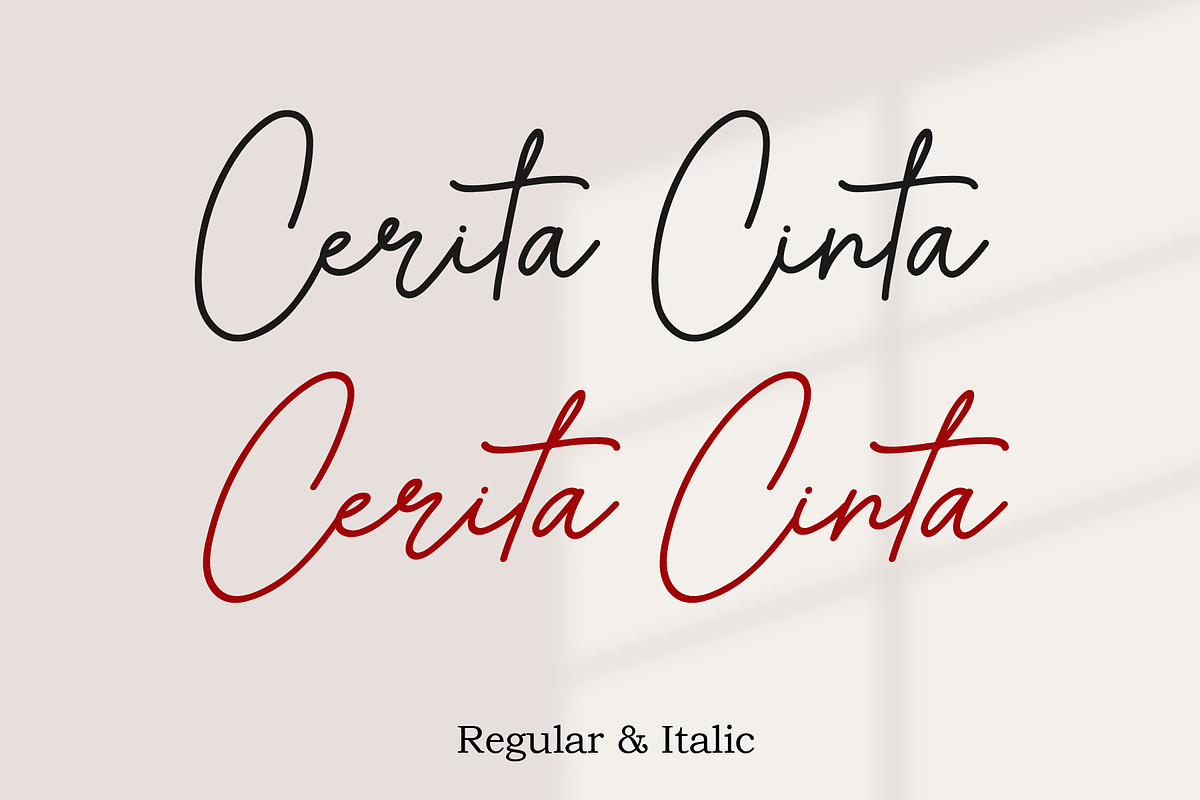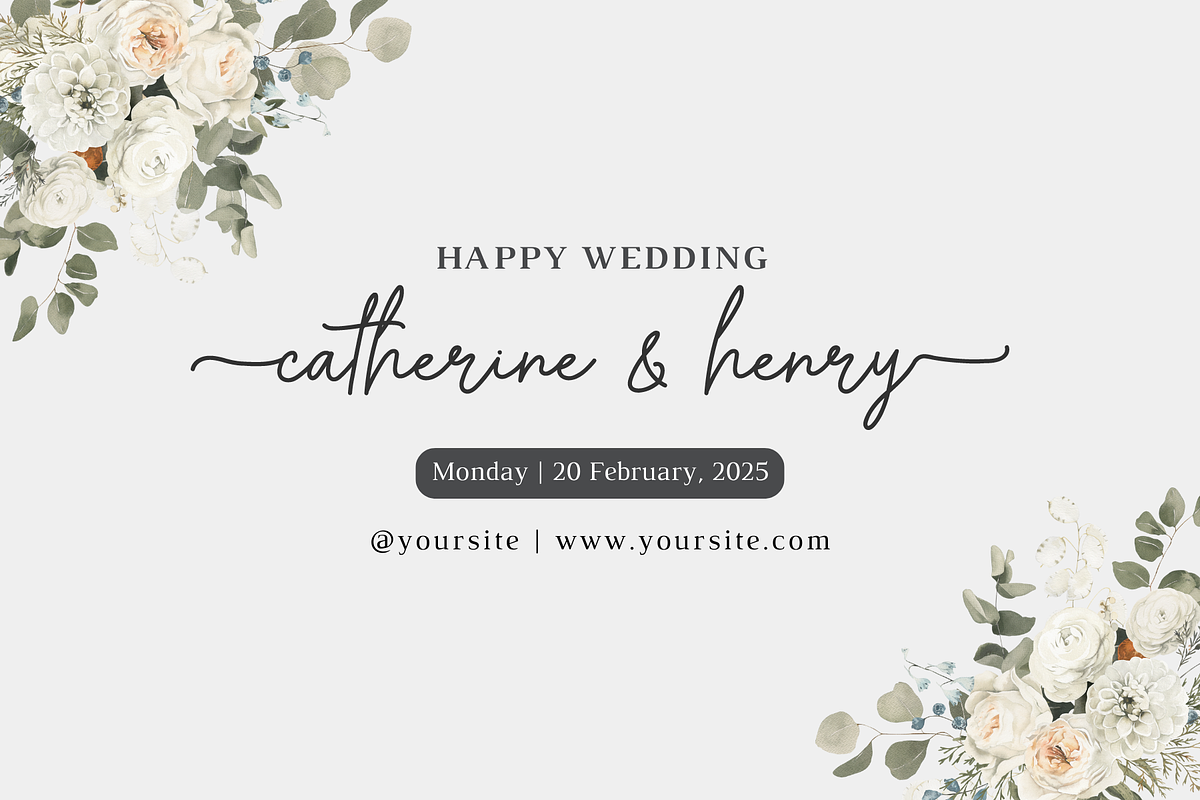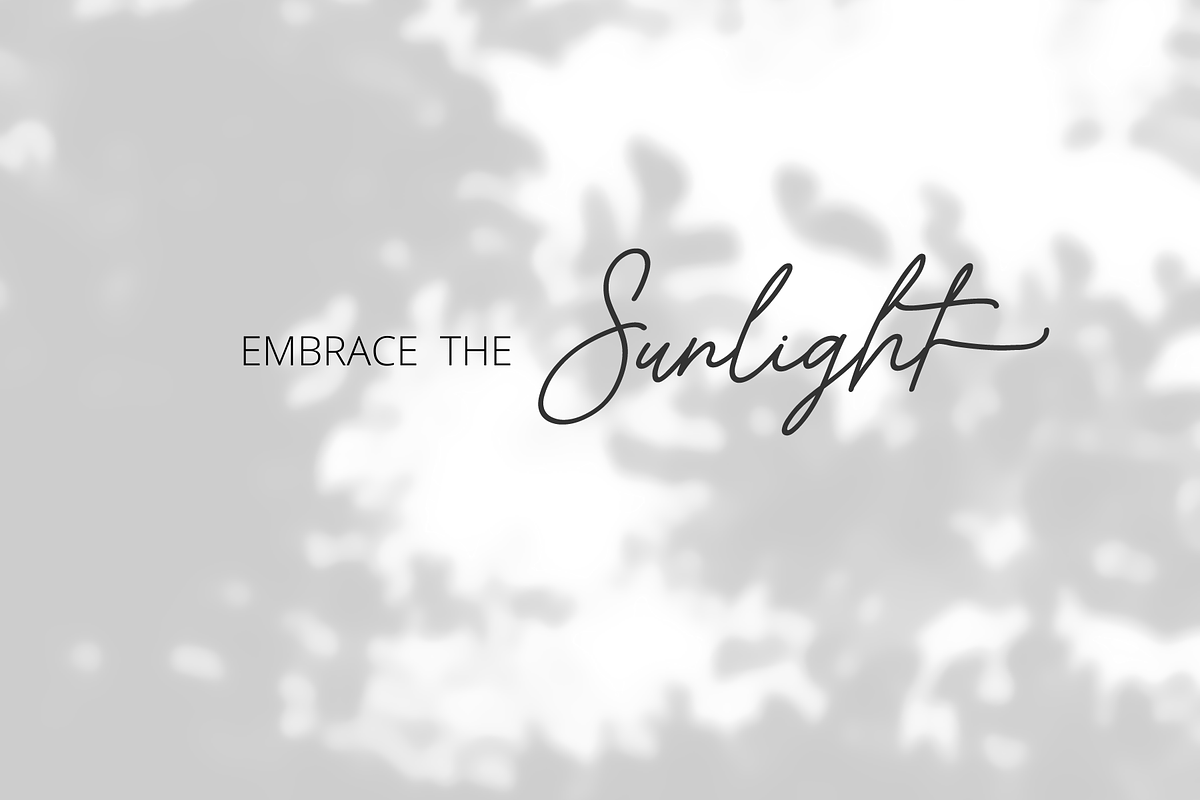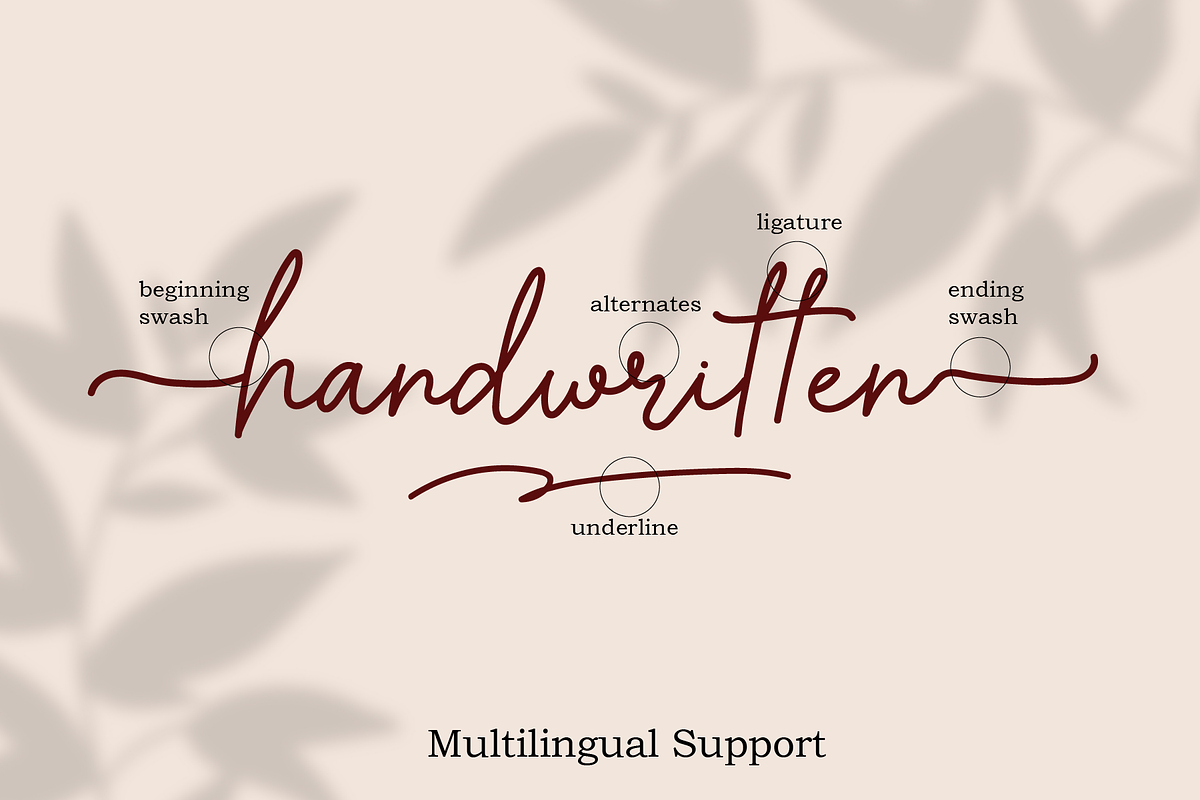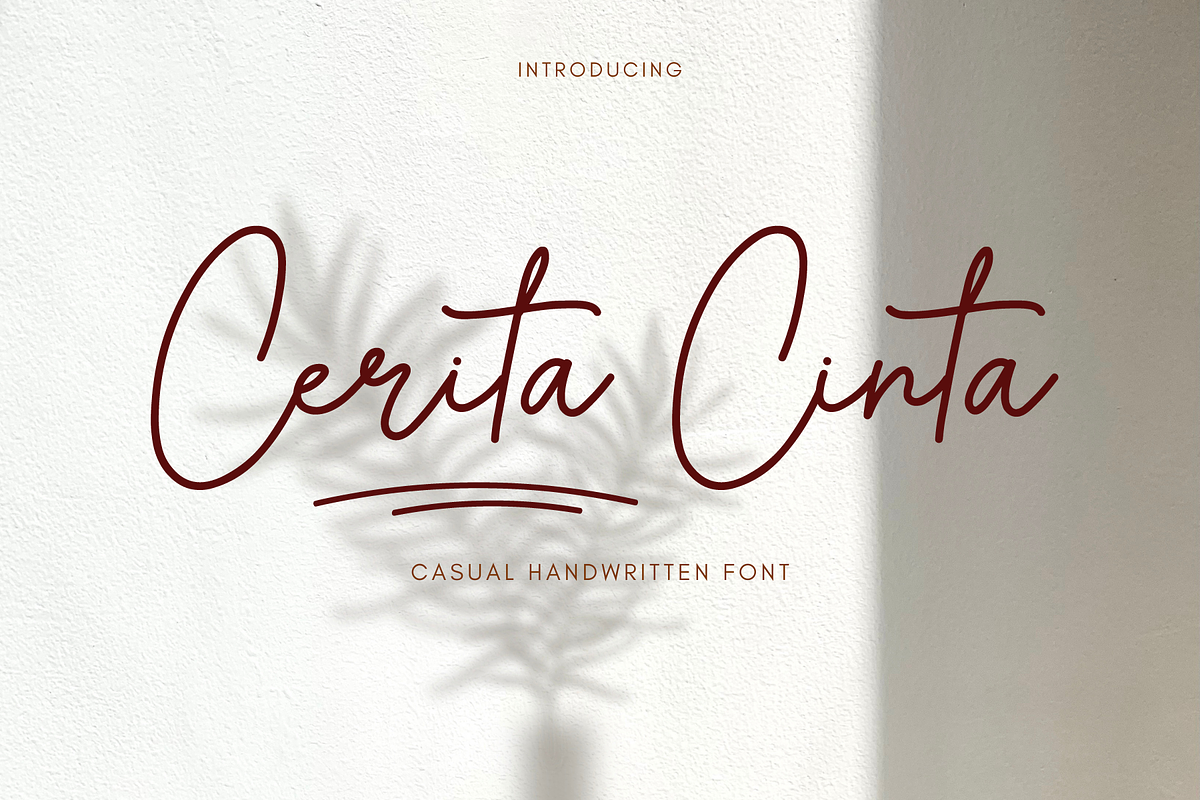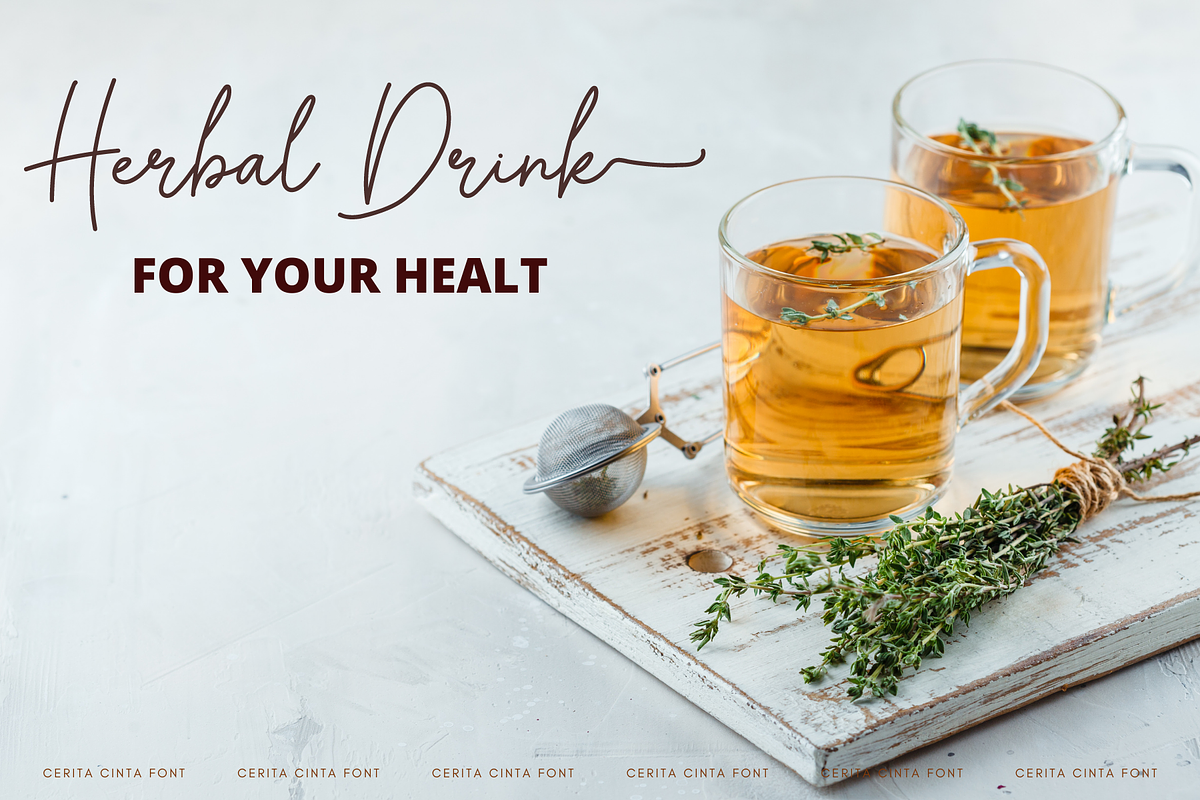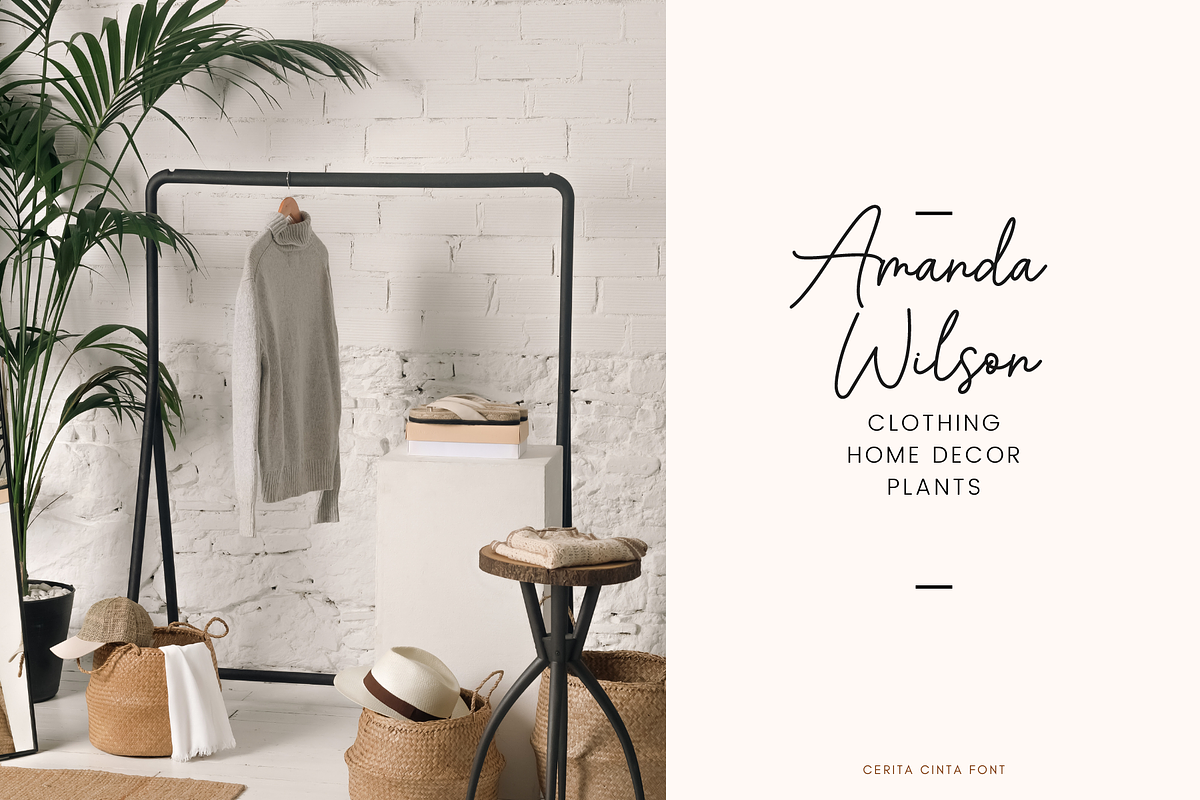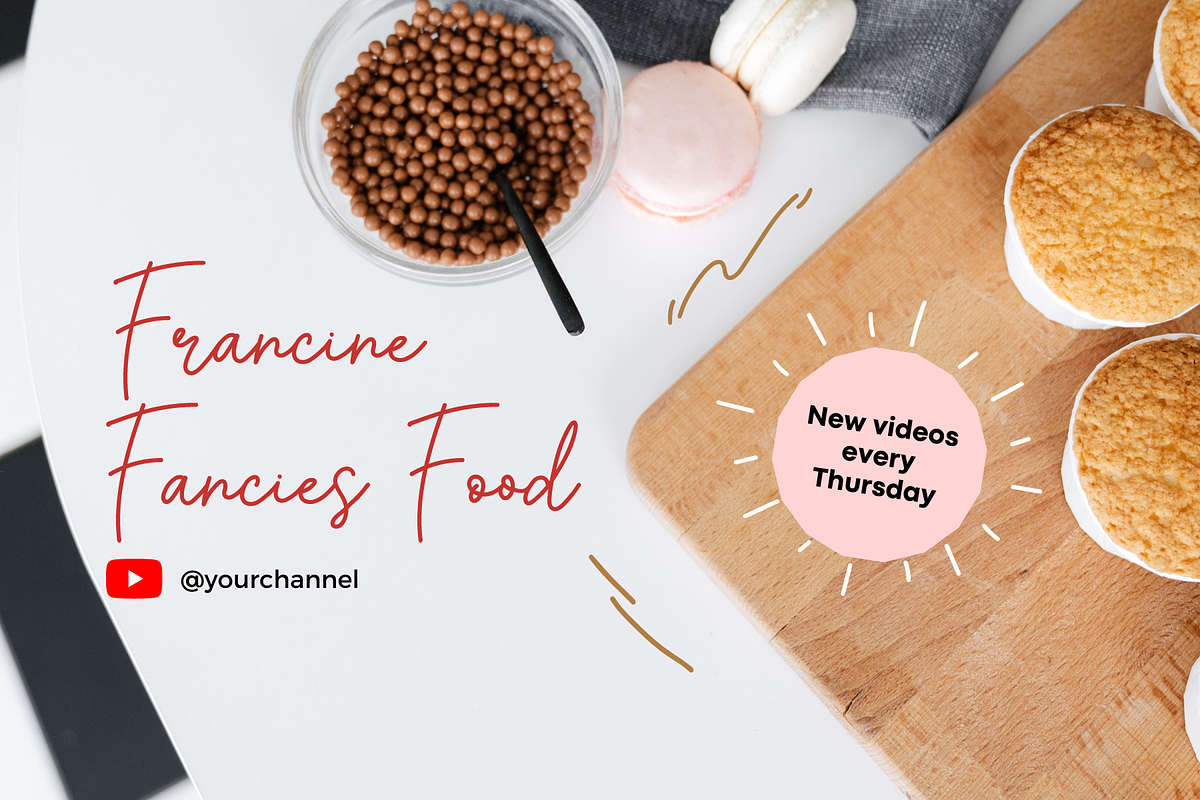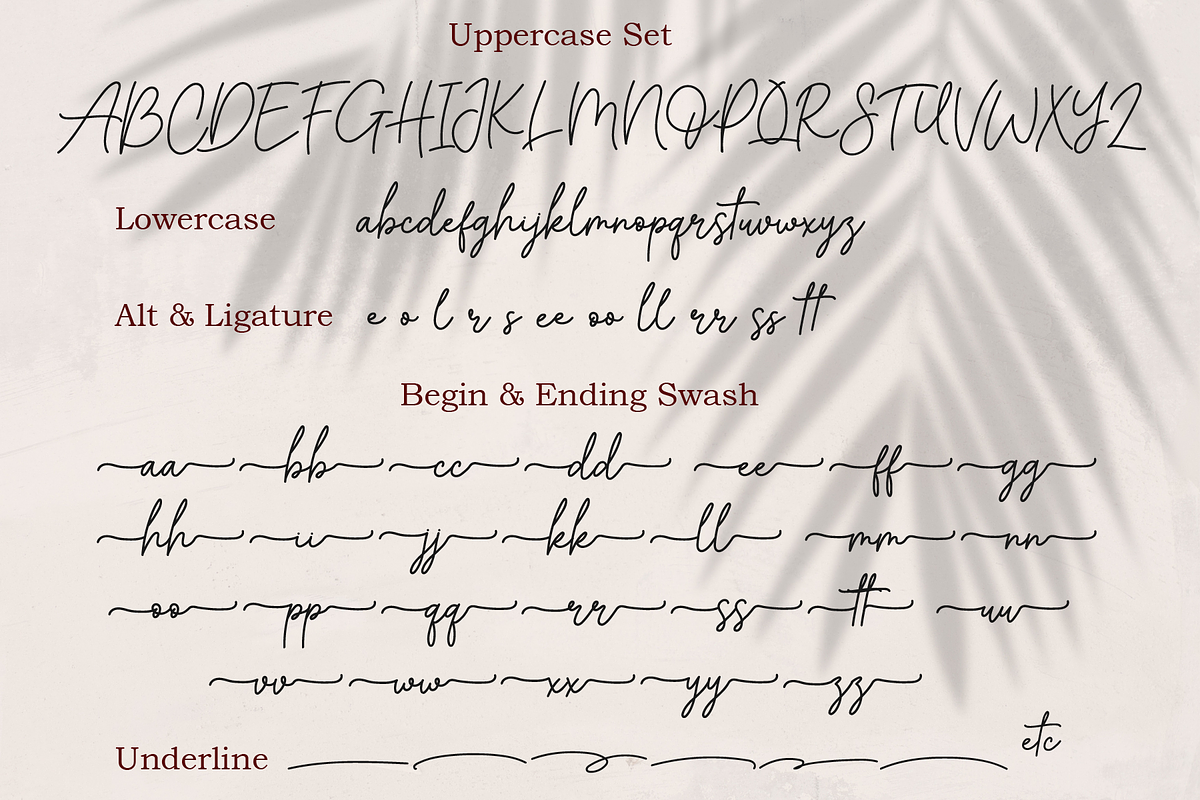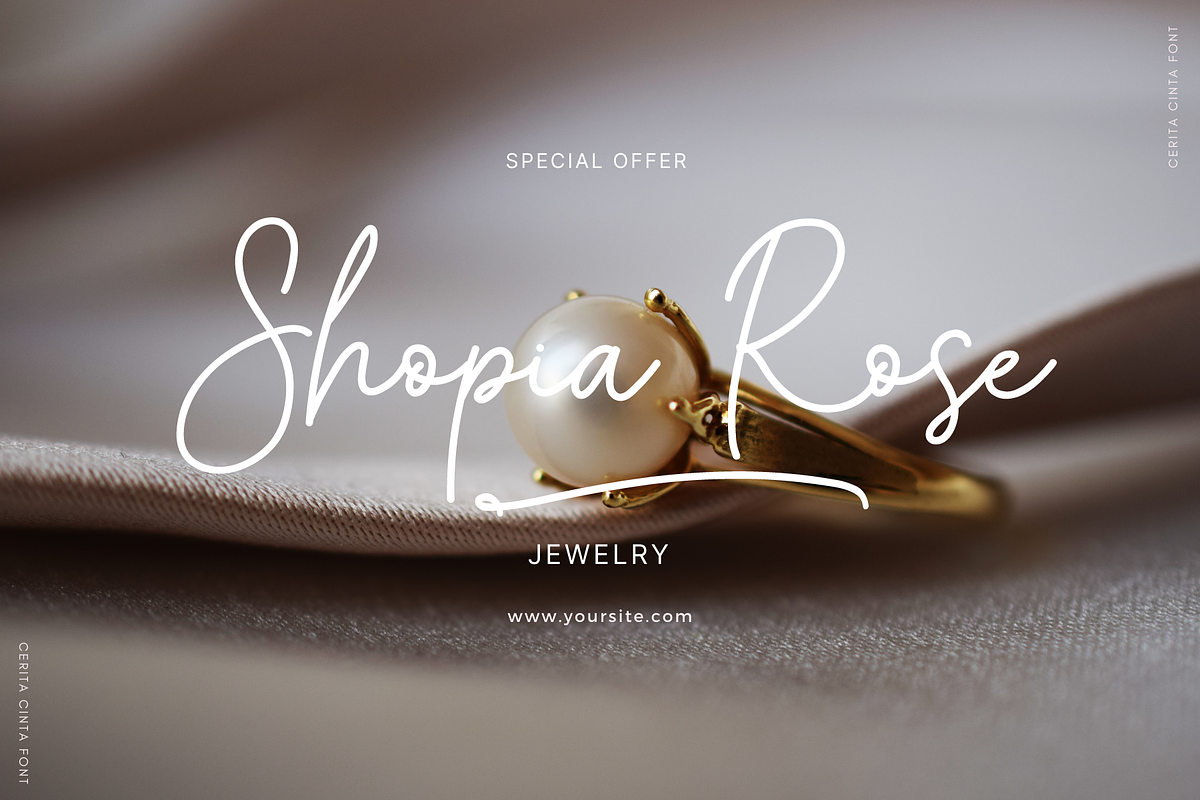
Cerita Cinta | Handwritten Font
Introducing
Cerita Cinta Font Cerita Cinta is a casual handwriting font. Its charm makes it appear wonderfully, readable, and, ultimately, incredibly versatile.
Comes in Regular and Italic styles. Equipped with beginning and ending tail.
This font will look outstanding in any context, whether it’s being used on busy backgrounds or as a standalone headline!